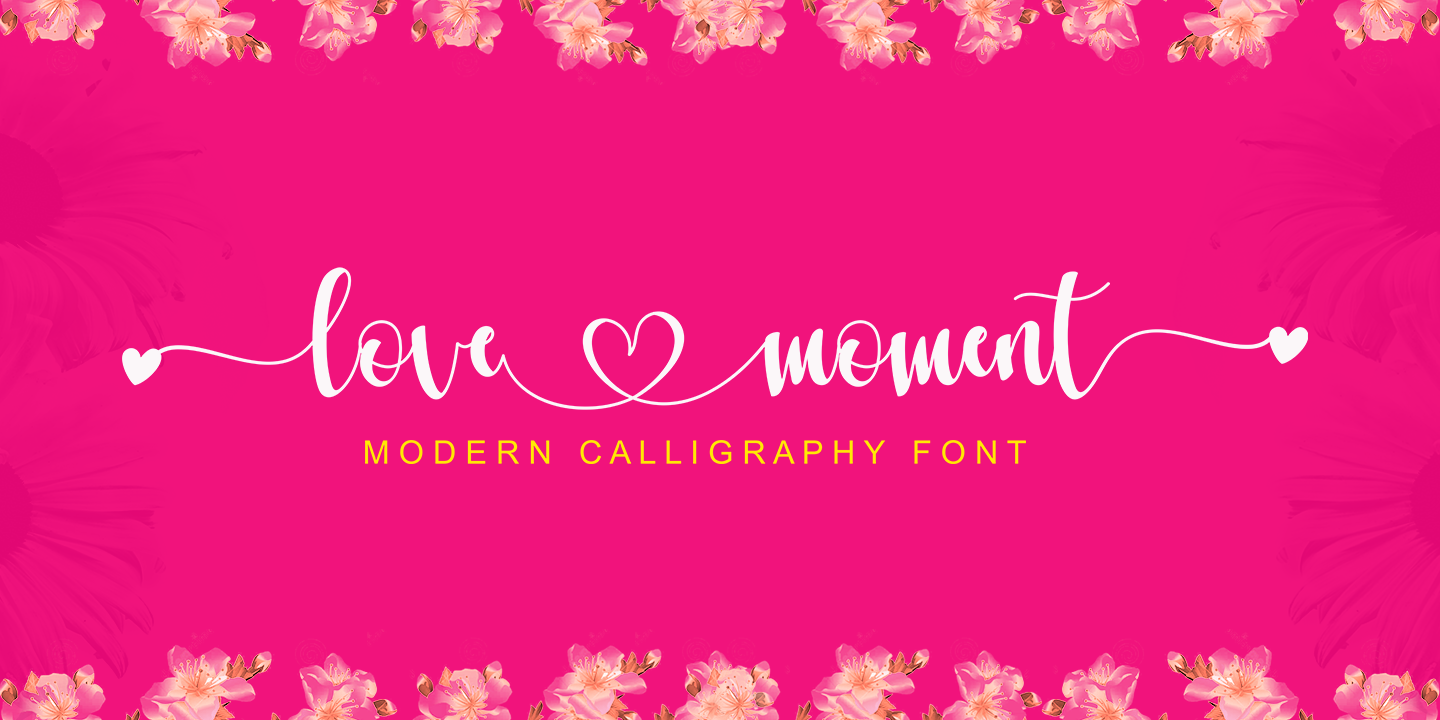
Love Moment Font Free Download is a romantic, elegant script typeface that beautifully captures the feeling of love and intimacy. With its graceful curves, flowing strokes, and sophisticated handwritten style, Love Moment Font is perfect for wedding invitations, save-the-date cards, branding, logos, social media graphics, packaging, and greeting cards. Its delicate, heartfelt design makes it ideal for projects that aim to evoke emotion and timeless beauty.
Whether you’re crafting wedding stationery, romantic branding, or stylish marketing materials, Love Moment Font adds a touch of sophistication and warmth. Its balance of elegance and readability ensures it looks beautiful across both print and digital platforms.